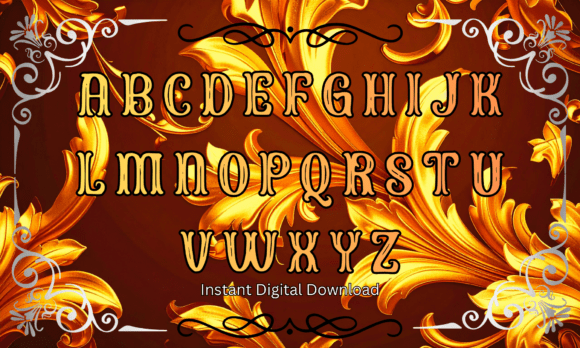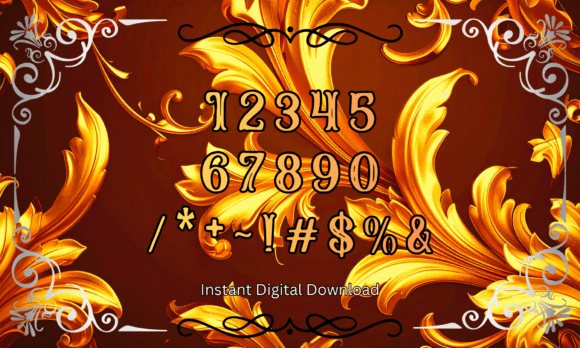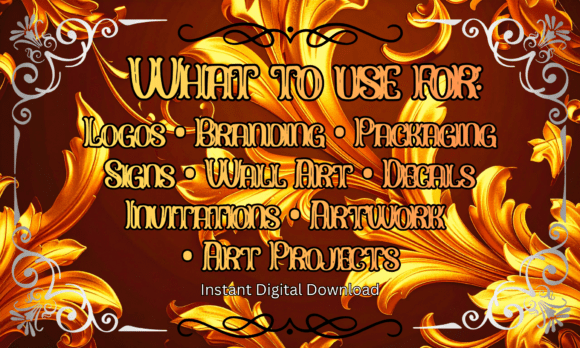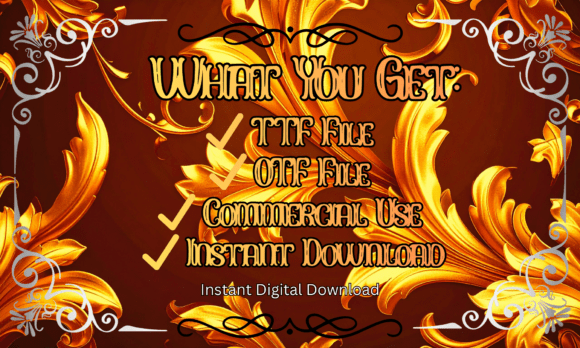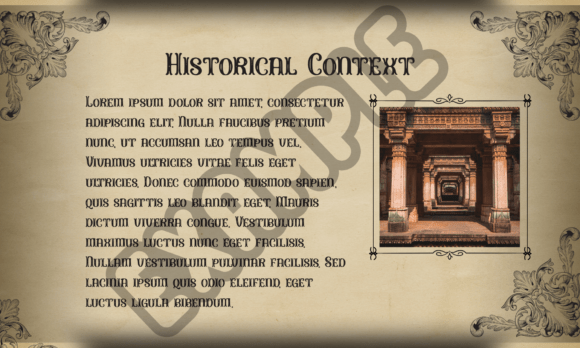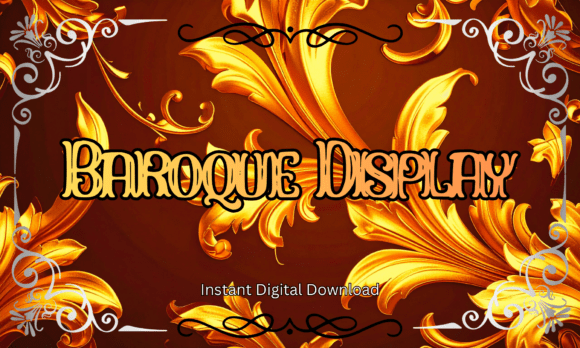
Add Timeless Elegance with Baroque Display Font
Elevate your designs with the luxurious Baroque Display Font, inspired by classical ornamentation and vintage typography. This stunning font features bold decorative curves, elegant serifs, and opulent character shapes, perfect for creating eye-catching designs with a royal or antique aesthetic.
Unleash Your Creativity with Elegant Typography
Whether you’re a designer, crafter, or DIY enthusiast, this Baroque Display Font is ideal for adding a touch of sophistication and drama to your projects. From logos and branding to packaging design, invitations, and wall art, this font delivers a rich, high-end look that stands out beautifully.
This versatile font is suitable for a wide range of applications, including:
• ✔ Logos & Branding: Create a lasting impression with a bold, elegant logo that exudes luxury and sophistication.
• ✔ Packaging Design: Add a touch of vintage glamour to your product packaging and make it stand out on store shelves.
• ✔ Signs & Wall Art: Create stunning wall art, signs, and posters that showcase your creativity and style.
• ✔ Invitations & Stationery: Add a touch of elegance to your invitations, greeting cards, and stationery.
• ✔ Decals & Stickers: Create eye-catching decals and stickers that make a statement.
• ✔ Artwork & Creative Projects: Use this font to add a touch of sophistication to your artwork, illustrations, and creative projects.
What to Expect from this Font
Our Baroque Display Font is designed to bring elegance, drama, and vintage beauty into every creation. With its:
• • Bold Decorative Curves: Add a touch of sophistication to your designs with bold, flowing curves.
• • Elegant Serifs: Create a sense of luxury and refinement with elegant serifs.
• • Luxurious Character Shapes: Use opulent character shapes to add a touch of glamour to your designs.
With the Baroque Display Font, you’ll be able to create stunning designs that exude elegance and sophistication. Whether you’re a seasoned designer or a DIY enthusiast, this font is perfect for anyone looking to add a touch of luxury to their projects.